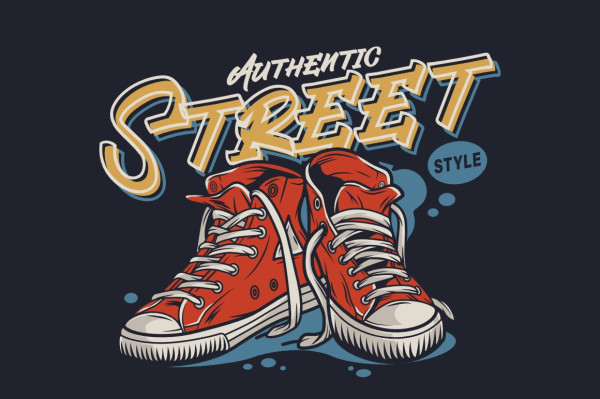
Vibrant Handmark Font
Vibrant Handmark Font, a captivating display typeface that exudes dynamic energy and creative flair. Crafted in a cursive style inspired by the strokes of a vibrant marker, this font captures the spontaneous spirit of hand-drawn designs. With its flowing lines and expressive curves, “Vibrant Handmark” brings a touch of playfulness and authenticity to your projects. Whether you’re designing eye-catching headlines, logo marks, or engaging visual content, this font’s bold and vivacious character will infuse your creations with a sense of lively charm. Features : Uppercase, Lowercase, Numeral, Symbol & Punctuations Multilingual Ligature & Alternates PUA Encoded Files